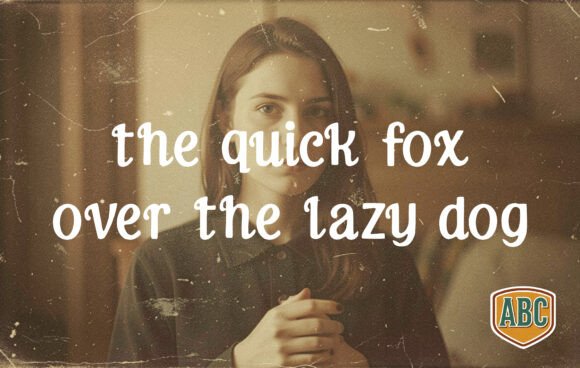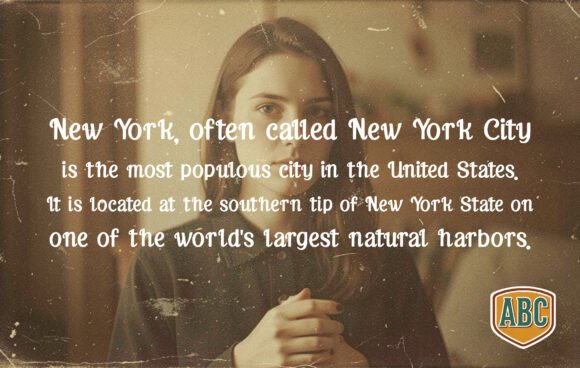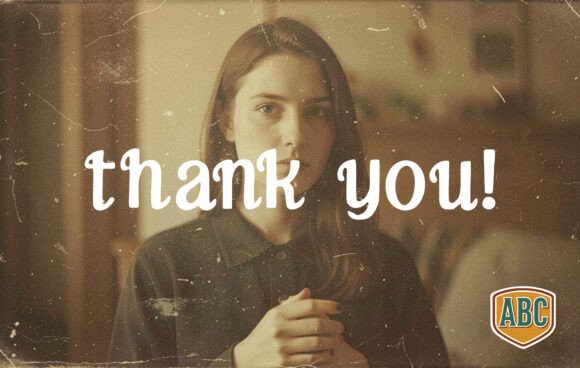
Introducing Almost Font: The Timeless Handwritten Font for Creative Designs
Are you a designer or crafter looking for a font that can add a personal touch to your creative projects? Look no further than Almost Font, a lovely and timeless handwritten font that is perfect for creating eye-catching logos, branding, and quotes. With its unique and beautiful touch, Almost Font is sure to make your design come alive!
The Characteristics of Almost Font
Almost Font is a handwritten font that exudes elegance and sophistication. Every letter has a distinct and beautiful touch, which sets it apart from other fonts. The font is carefully crafted to provide a sense of warmth and personality, making it perfect for designs that require a personal touch. Whether you’re creating wedding stationery, journals, greeting cards, product packaging, or social media designs, Almost Font is the ideal choice.
Almost Font is a versatile font that can be used for a wide range of creative projects. Here are some of the perfect applications for this lovely font:
- Wedding Stationery: Create beautiful wedding invitations, save-the-date cards, and thank-you notes with Almost Font. The font’s elegant and sophisticated feel makes it perfect for wedding designs.
- Journals and Notebooks: Add a personal touch to your journals and notebooks with Almost Font. The font’s unique and beautiful touch makes it perfect for diary entries, to-do lists, and inspirational quotes.
- Greeting Cards: Create stunning greeting cards for special occasions such as birthdays, anniversaries, and holidays. Almost Font’s elegant feel makes it perfect for expressing your sentiments.
- Product Packaging: Use Almost Font to create eye-catching product packaging that stands out from the crowd. The font’s unique and beautiful touch makes it perfect for product labels, packaging inserts, and instruction manuals.
- Social Media Designs: Create stunning social media designs with Almost Font. The font’s elegant and sophisticated feel makes it perfect for quotes, inspirational messages, and promotional graphics.
Why Choose Almost Font?
There are many reasons why Almost Font is the ideal choice for designers and crafters. Here are some of the benefits of using this lovely font:
- Unique and Beautiful Touch: Almost Font has a unique and beautiful touch that sets it apart from other fonts. The font’s elegant and sophisticated feel makes it perfect for designs that require a personal touch.
- Timeless Appeal: Almost Font has a timeless appeal that makes it perfect for designs that require a classic and elegant feel. The font’s elegant and sophisticated feel ensures that your designs will never go out of style.
- Versatility: Almost Font is a versatile font that can be used for a wide range of creative projects. Whether you’re creating wedding stationery, journals, greeting cards, product packaging, or social media designs, Almost Font is the ideal choice.
- Easy to Read: Almost Font is easy to read, making it perfect for designs that require a clear and concise message. The font’s elegant and sophisticated feel ensures that your message will be conveyed effectively.
Tips for Using Almost Font
Here are some tips for using Almost Font in your creative projects:
- Use it with Simple Backgrounds: Almost Font looks best with simple backgrounds that don’t distract from the font’s elegant and sophisticated feel. Use a simple background to make your design stand out.
- Experiment with Colors: Almost Font looks great in a variety of colors. Experiment with different colors to find the one that works best for your design.
- Use it for Headlines and Titles: Almost Font is perfect for headlines and titles. Use it to create eye-catching headlines and titles that grab attention.
- Pair it with Other Fonts: Almost Font can be paired with other fonts to create a unique and interesting design. Experiment with different font combinations to find the one that works best for your design.
Almost Font is a lovely and timeless handwritten font that is perfect for creating eye-catching logos, branding, and quotes. With its unique and beautiful touch, Almost Font is sure to make your design come alive! Whether you’re creating wedding stationery, journals, greeting cards, product packaging, or social media designs, Almost Font is the ideal choice. So why wait? Try Almost Font today and take your designs to the next level!